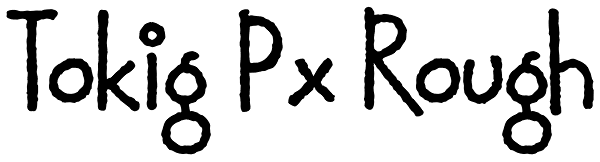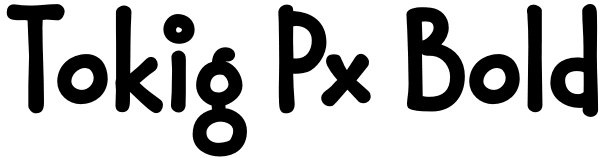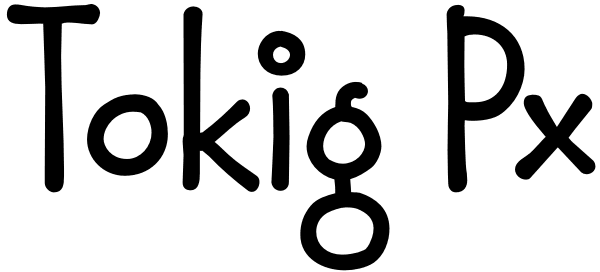
Tokig Px
Tokig is a fun, whimsical font with varying heights, yet very legible and with a very complete character set.
Tokig Px Rough
Tokig Px Bold
Tokig Px